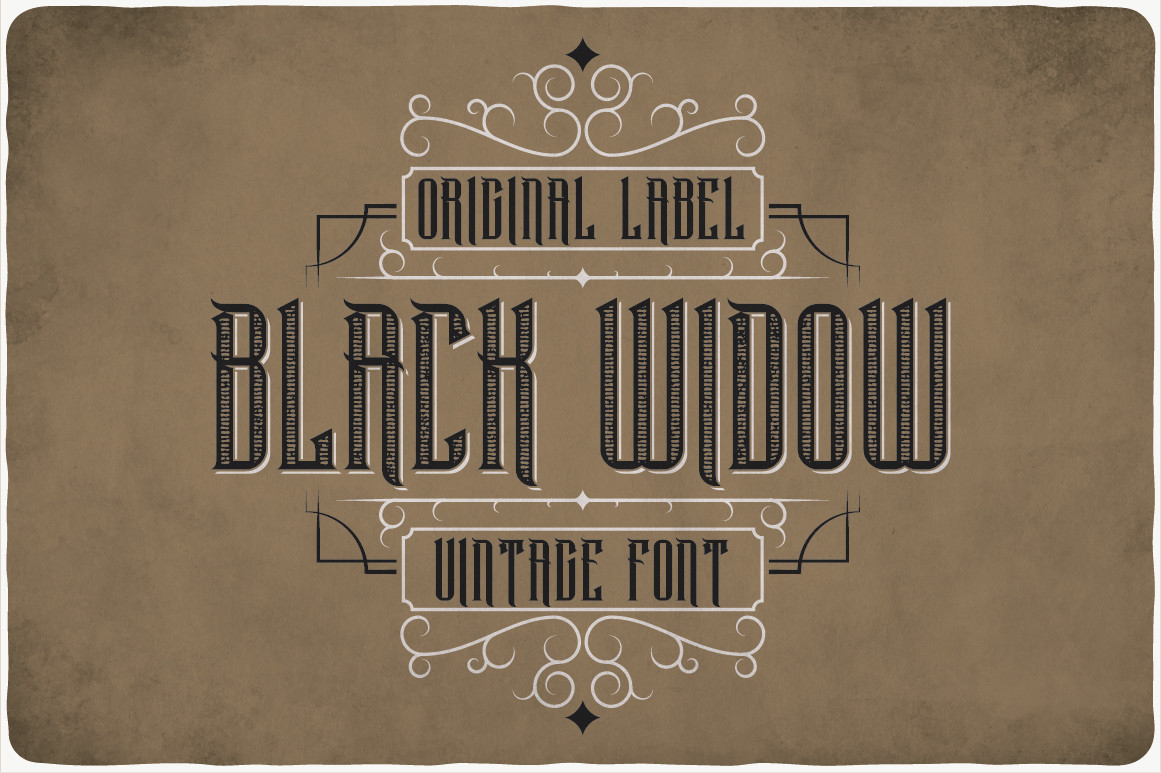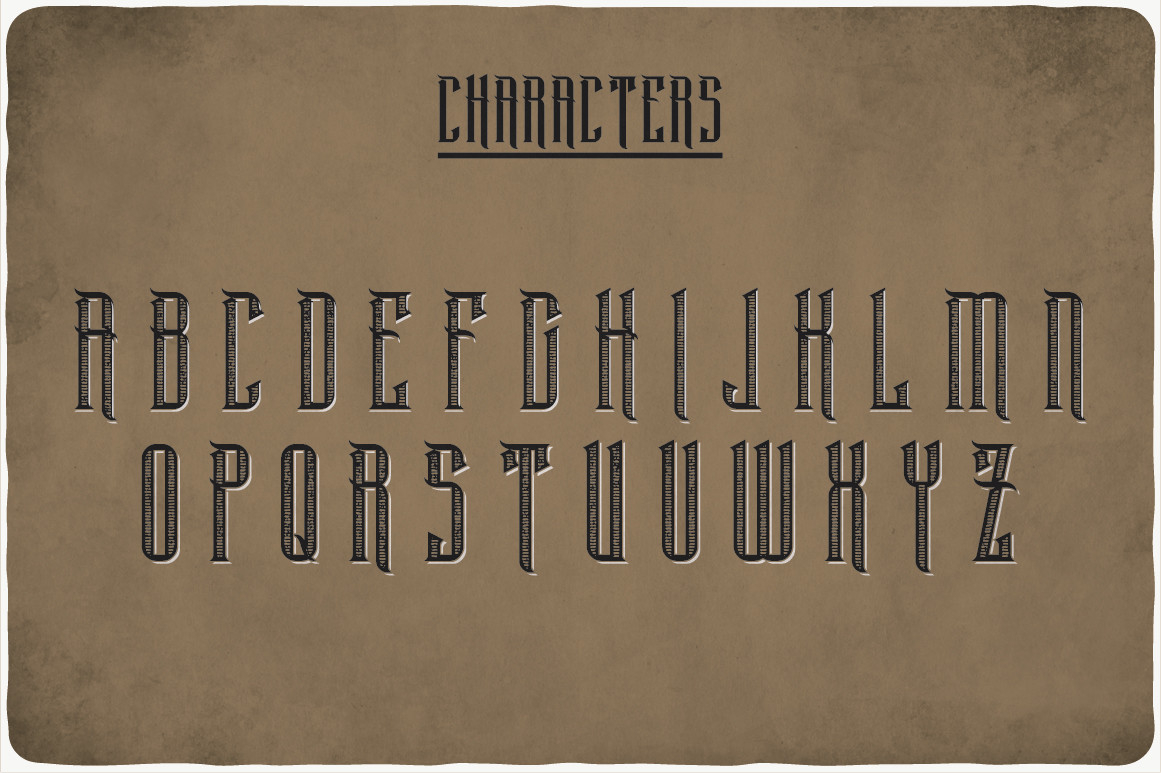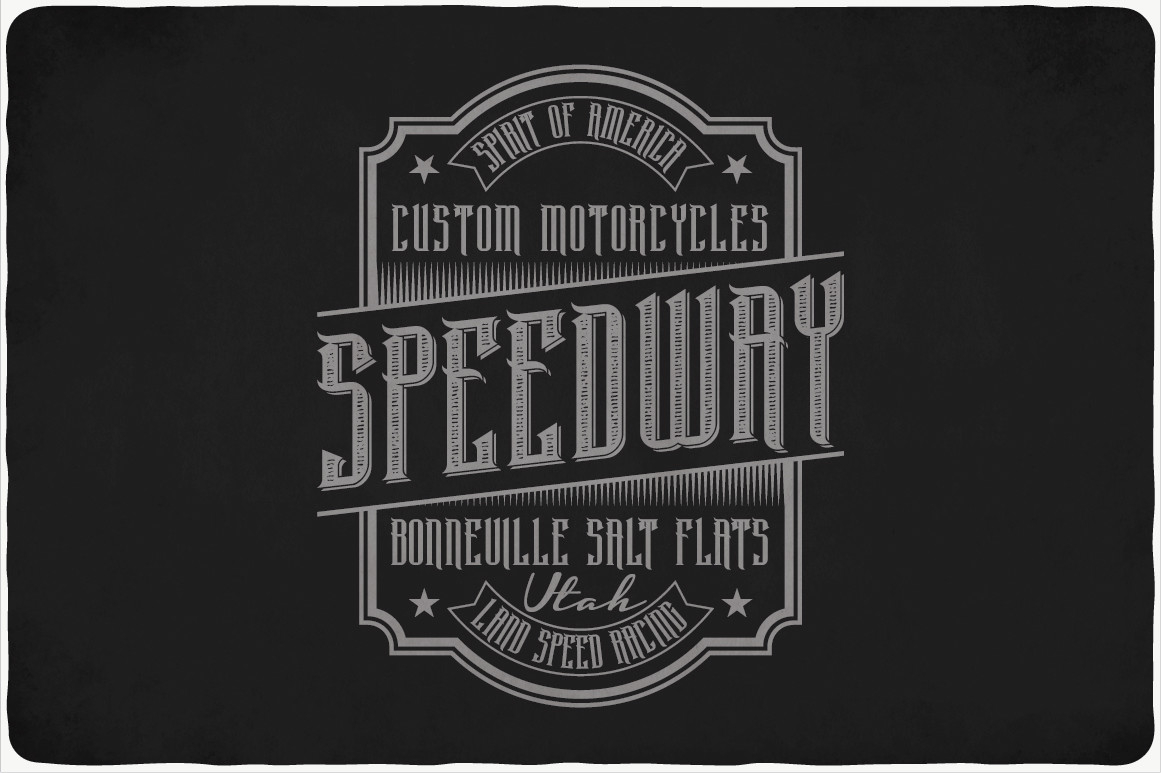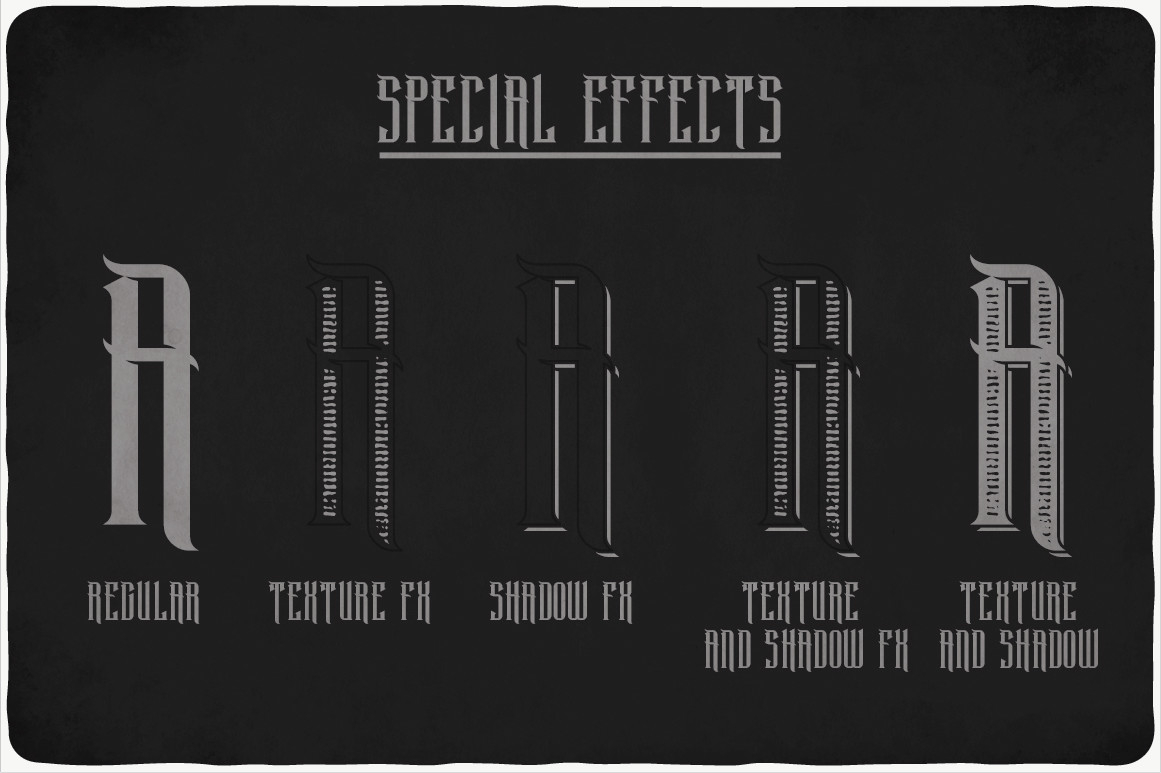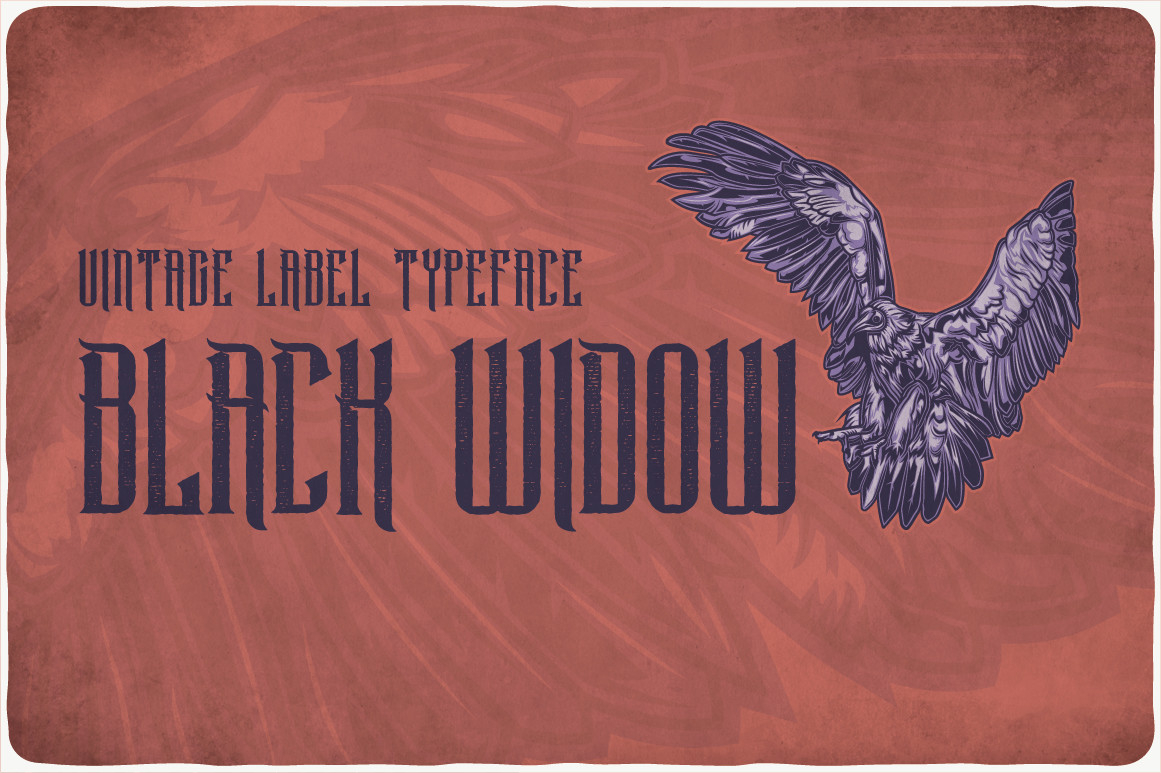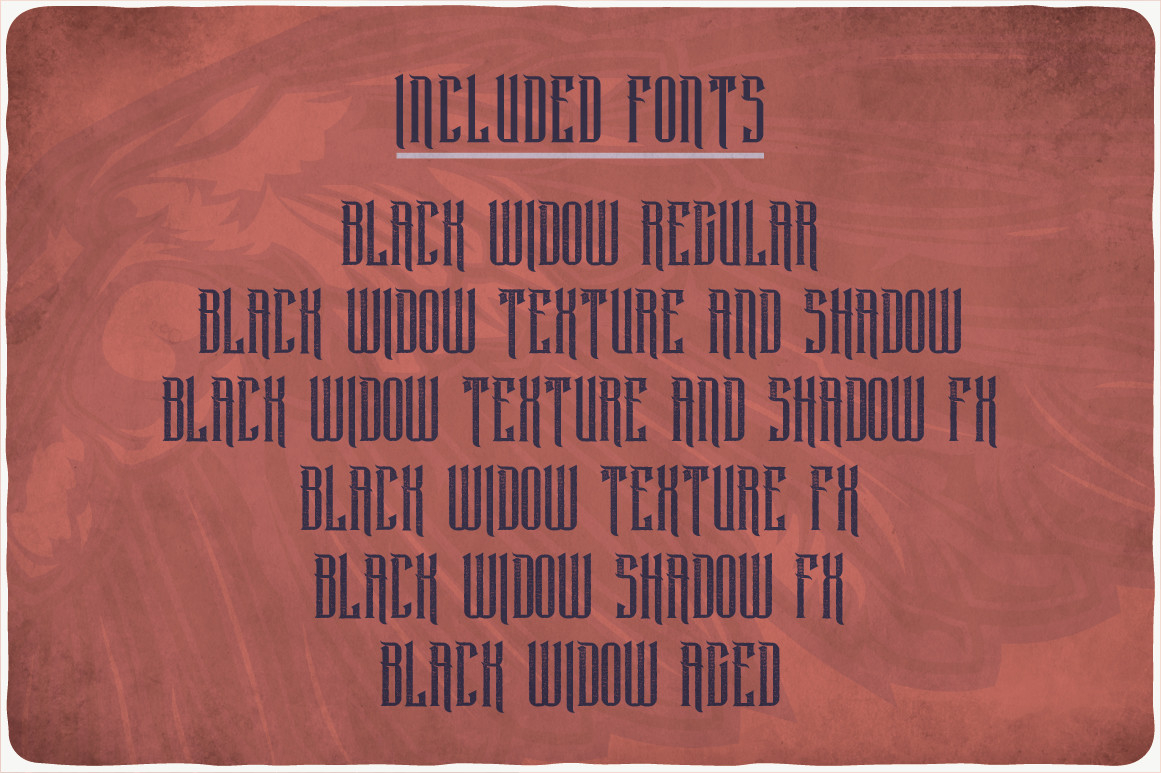
Black Widow Font
About Black Widow Font
Black widow is a stylish vintage-looking blackletter font. It has the potential to bring your creative ideas to the highest level and make your message more impactful!